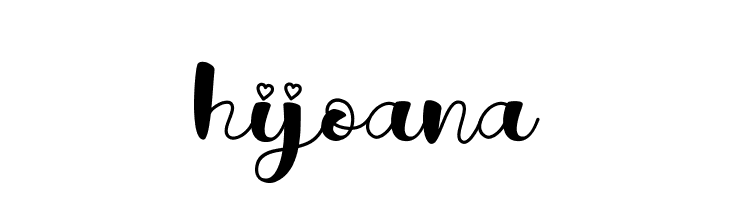
A playful, handwritten font with bold and flowing strokes, perfect for informal and creative projects.
A playful and elegant handwritten script font with whimsical flourishes.